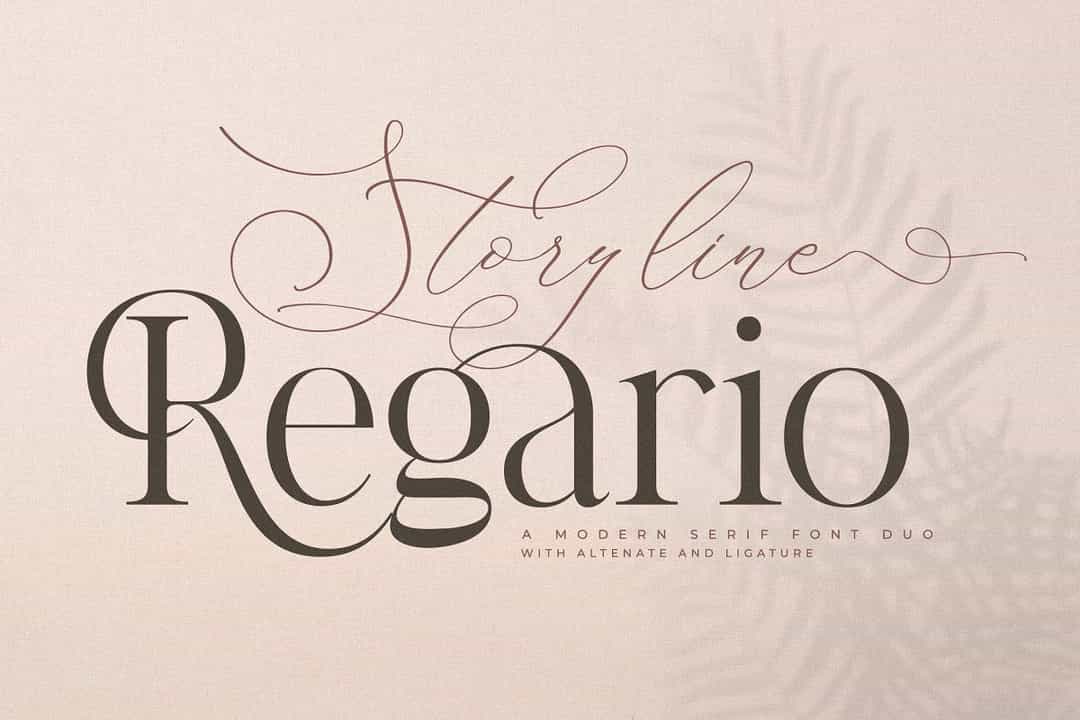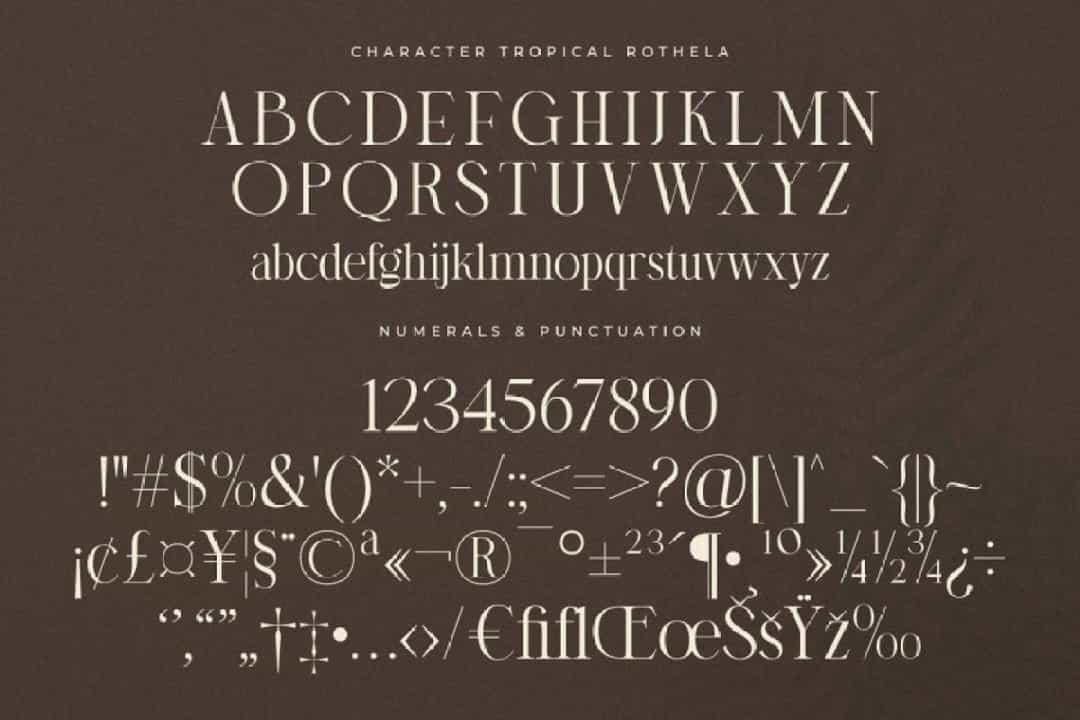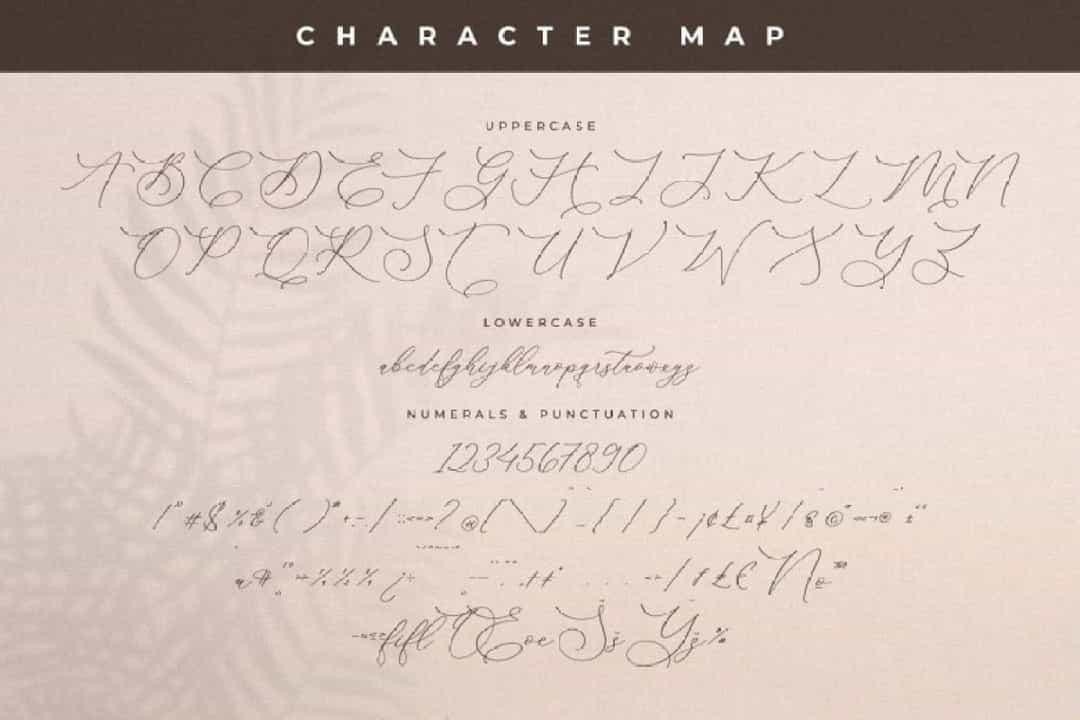
Storyline Regario Font Duo is an elegant script-serif typeface with contemporary appeal, perfect for sophisticated logos, movie or book titles, fashion brand letters, clothing quotes and many other applications.